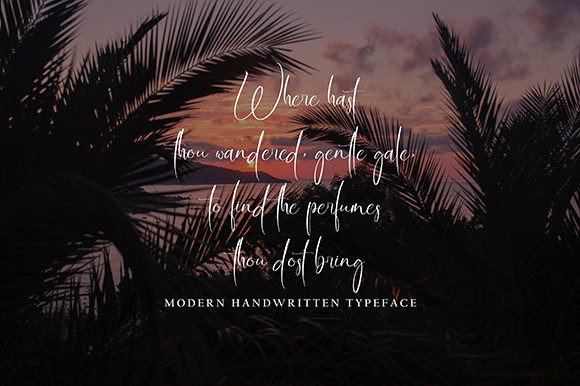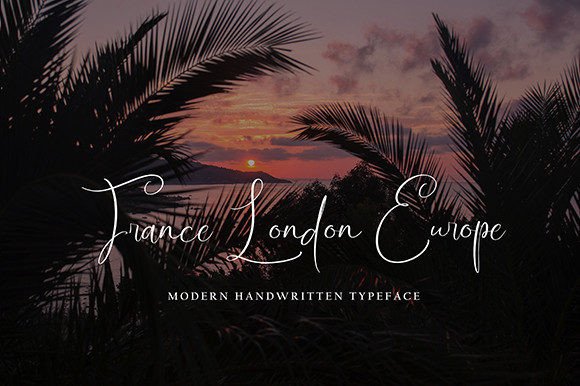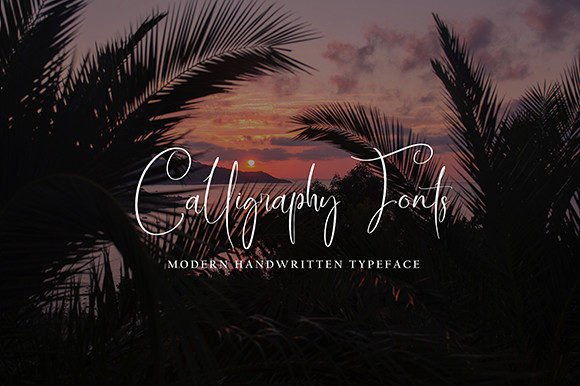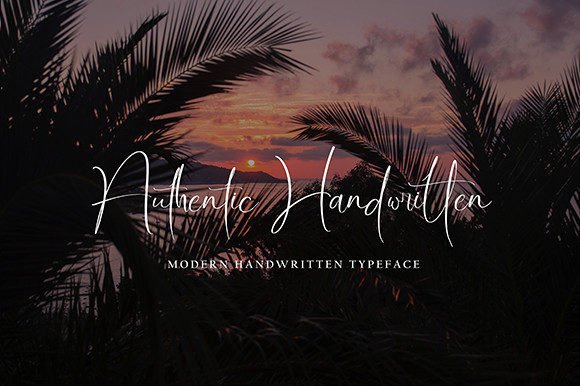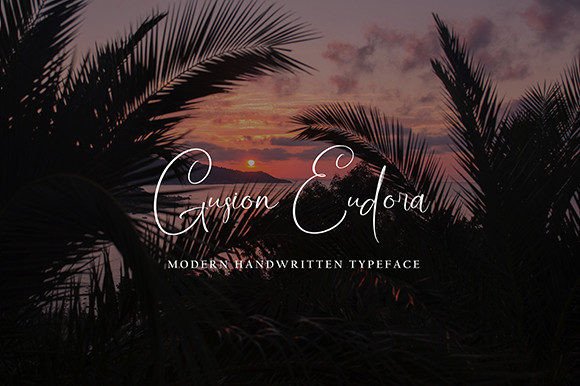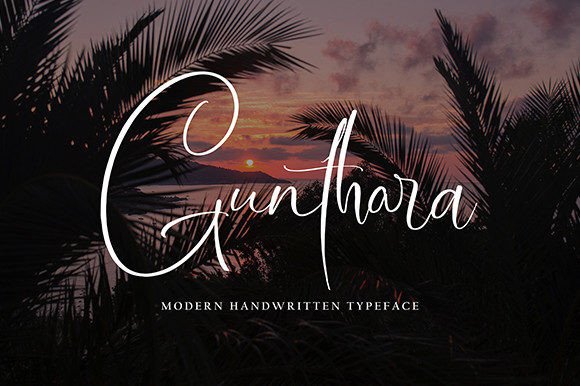
Introducing Gunthara Font: The Ultimate Script Font for Creative Designs
Are you a designer or crafter looking for a stylish and fresh script font to elevate your creative projects? Look no further than Gunthara Font! This stunning script font is perfect for adding a touch of elegance and sophistication to your designs, making it ideal for a wide range of applications, from quotes and logos to blog headers, posters, branding, letters, invitations, and stationery.
What Makes Gunthara Font So Special?
Gunthara Font is a beautifully crafted script font that boasts an amazing look, making it perfect for designers and crafters who want to add a touch of style and flair to their projects. Its unique and elegant design makes it stand out from other script fonts, and its versatility ensures that it can be used for a wide range of creative applications.
Key Features of Gunthara Font
- Stylish and Fresh Design: Gunthara Font features a stylish and fresh design that is sure to impress. Its elegant and sophisticated look makes it perfect for high-end designs and creative projects.
- Perfect for Quotes and Logos: The font’s script design makes it perfect for quotes, logos, and other applications where a touch of elegance and sophistication is required.
- Ideal for Blog Headers and Posters: Gunthara Font is also ideal for blog headers, posters, and other large-format designs, where its stylish and fresh design can be showcased to great effect.
- Suitable for Branding and Stationery: The font’s versatility ensures that it can be used for branding, stationery, and other applications where a professional and elegant look is required.
- Easy to Read and Use: Despite its elegant design, Gunthara Font is easy to read and use, making it perfect for designers and crafters of all skill levels.
How to Use Gunthara Font in Your Designs
Using Gunthara Font in your designs is easy! Here are a few tips to get you started:
- Pair it with Other Fonts: Gunthara Font pairs well with other fonts, making it easy to create unique and interesting combinations.
- Experiment with Different Sizes: The font’s elegant design ensures that it looks great at a wide range of sizes, from small and delicate to large and bold.
- Add a Personal Touch: Gunthara Font is perfect for adding a personal touch to your designs, making it ideal for handmade and craft projects.
Why Designers and Crafters Love Gunthara Font
Designers and crafters love Gunthara Font for its unique and elegant design, which makes it perfect for a wide range of creative applications. Here are just a few reasons why:
- Unique and Stylish: Gunthara Font is a unique and stylish script font that adds a touch of elegance and sophistication to any design.
- Versatile: The font’s versatility ensures that it can be used for a wide range of creative applications, from quotes and logos to blog headers and posters.
- Easy to Use: Gunthara Font is easy to use and read, making it perfect for designers and crafters of all skill levels.
In conclusion, Gunthara Font is a stylish and fresh script font that is perfect for designers and crafters looking to add a touch of elegance and sophistication to their creative projects. Its unique and elegant design, versatility, and ease of use make it an ideal choice for a wide range of applications, from quotes and logos to blog headers, posters, branding, letters, invitations, and stationery. So why wait? Download Gunthara Font today and start creating stunning designs that showcase your creativity and style!